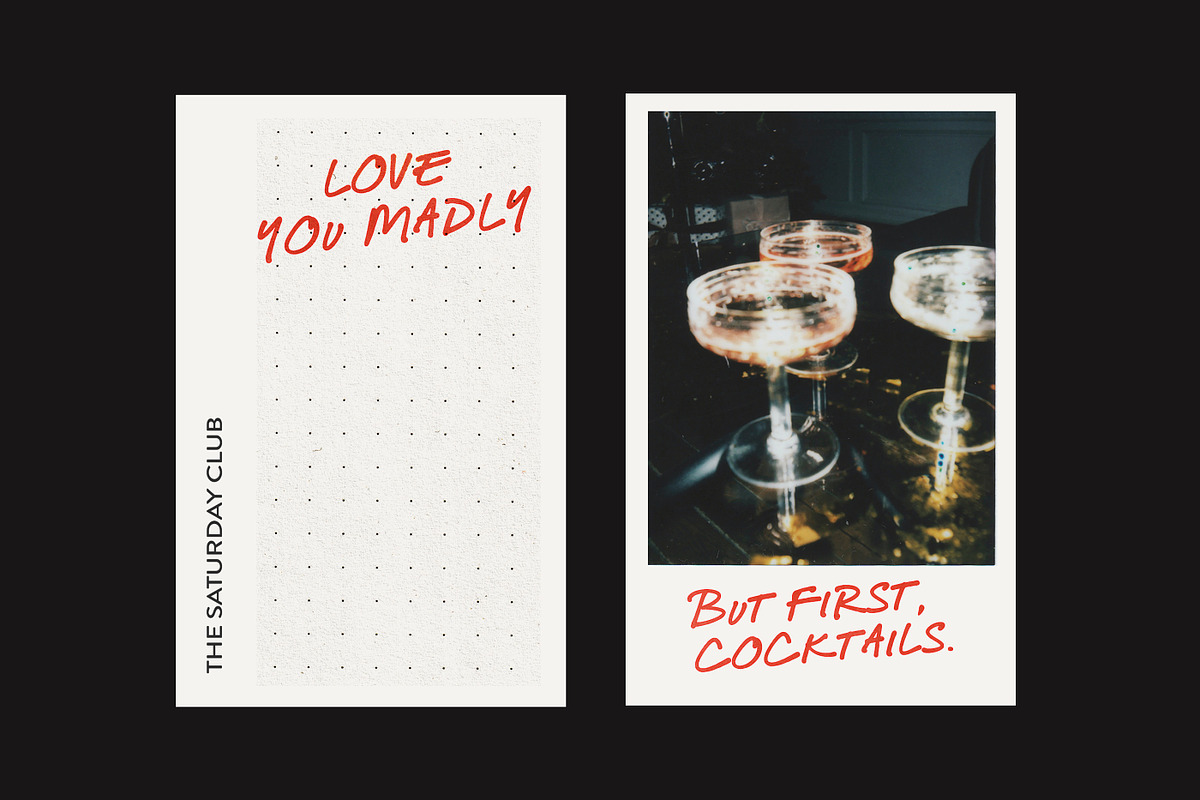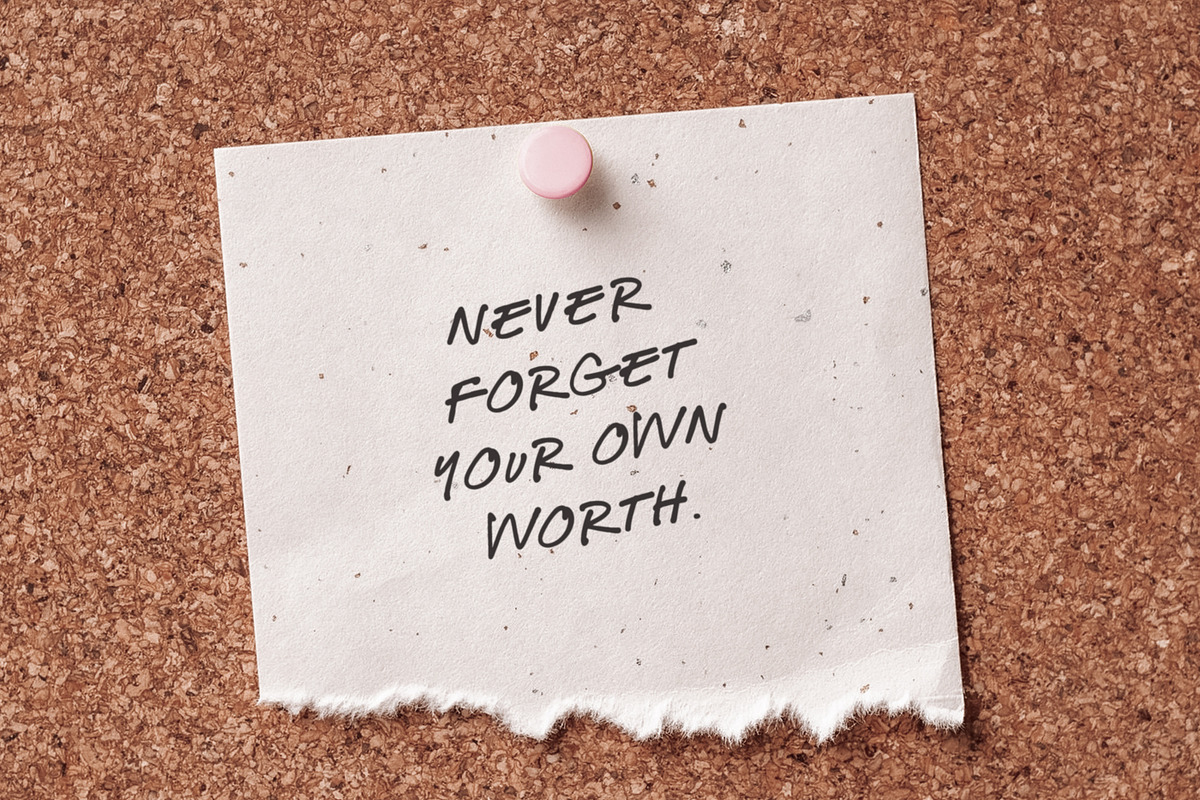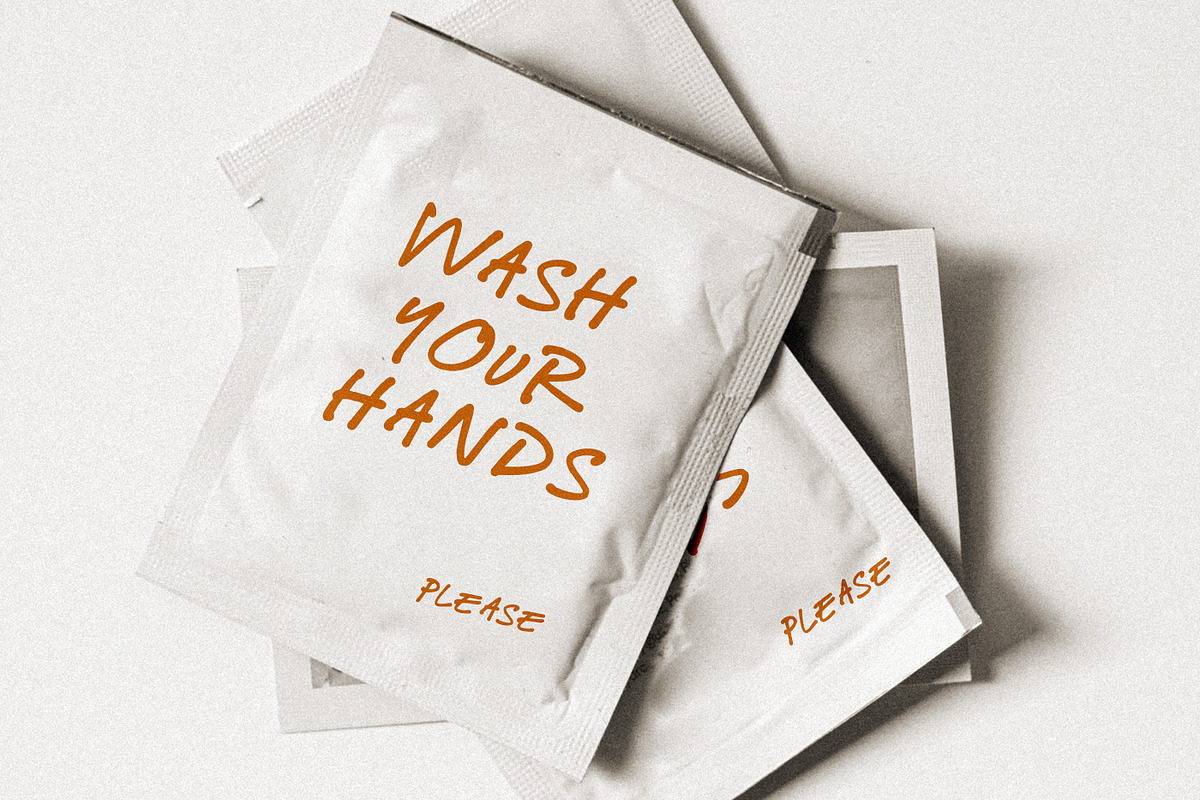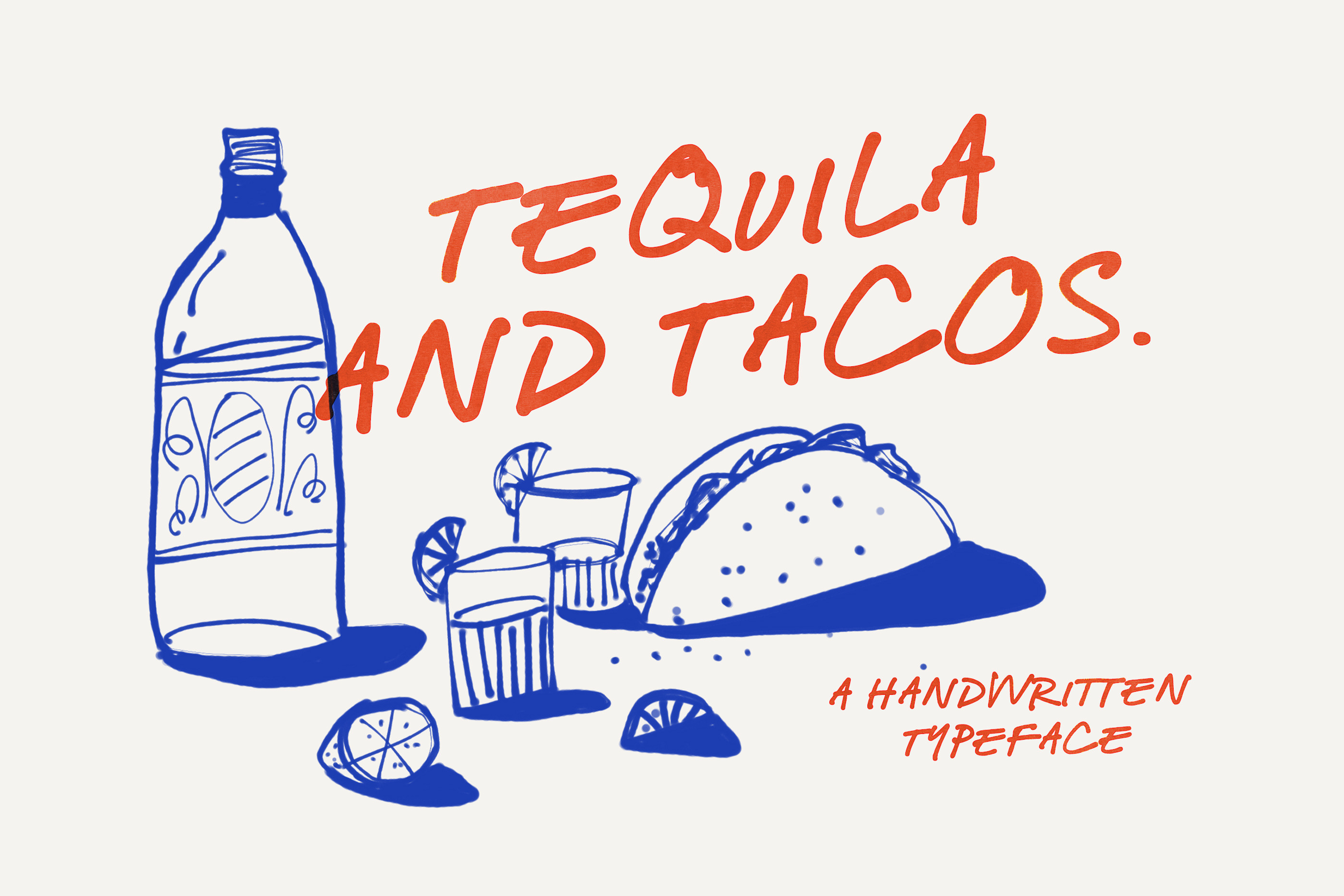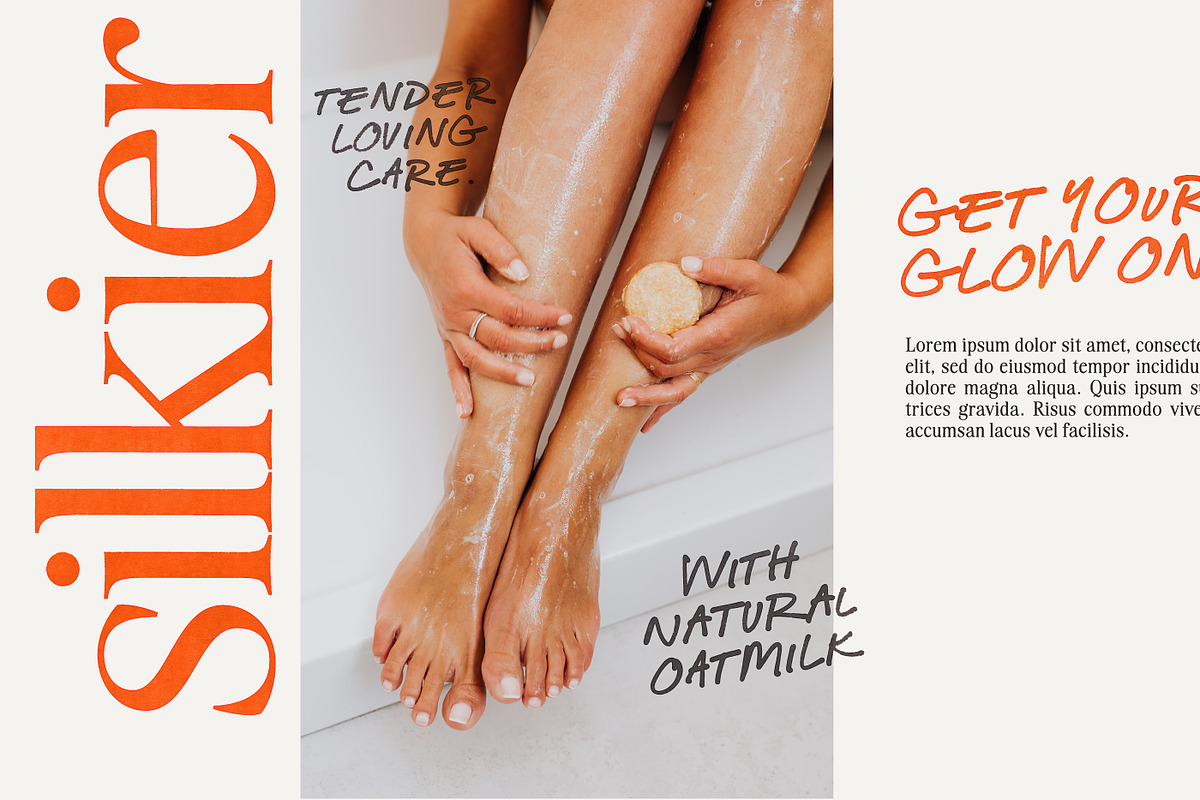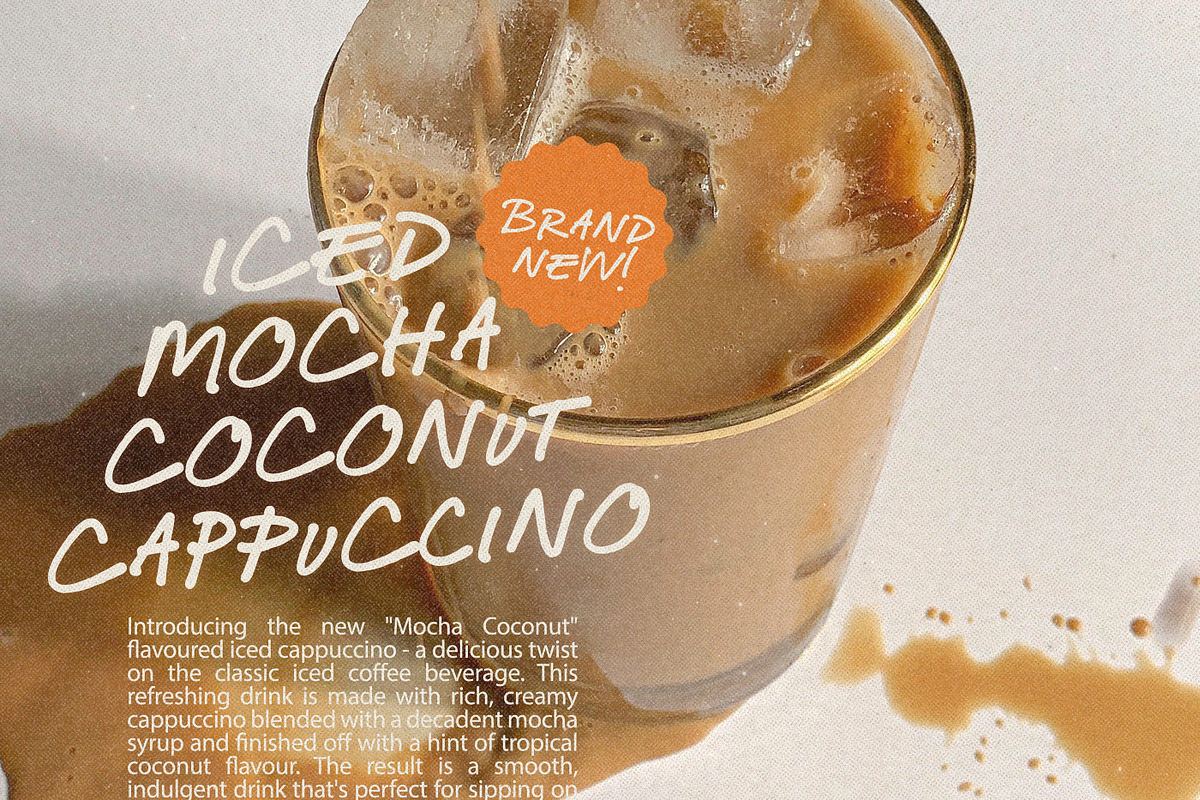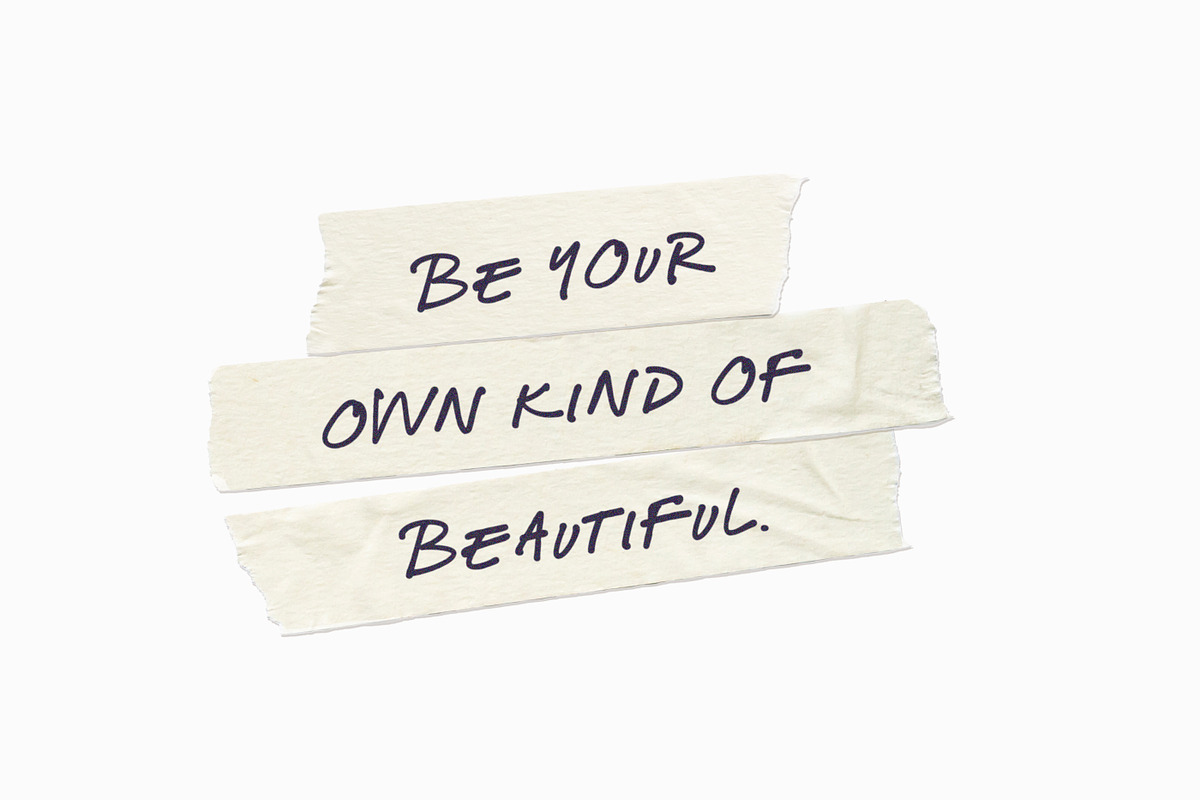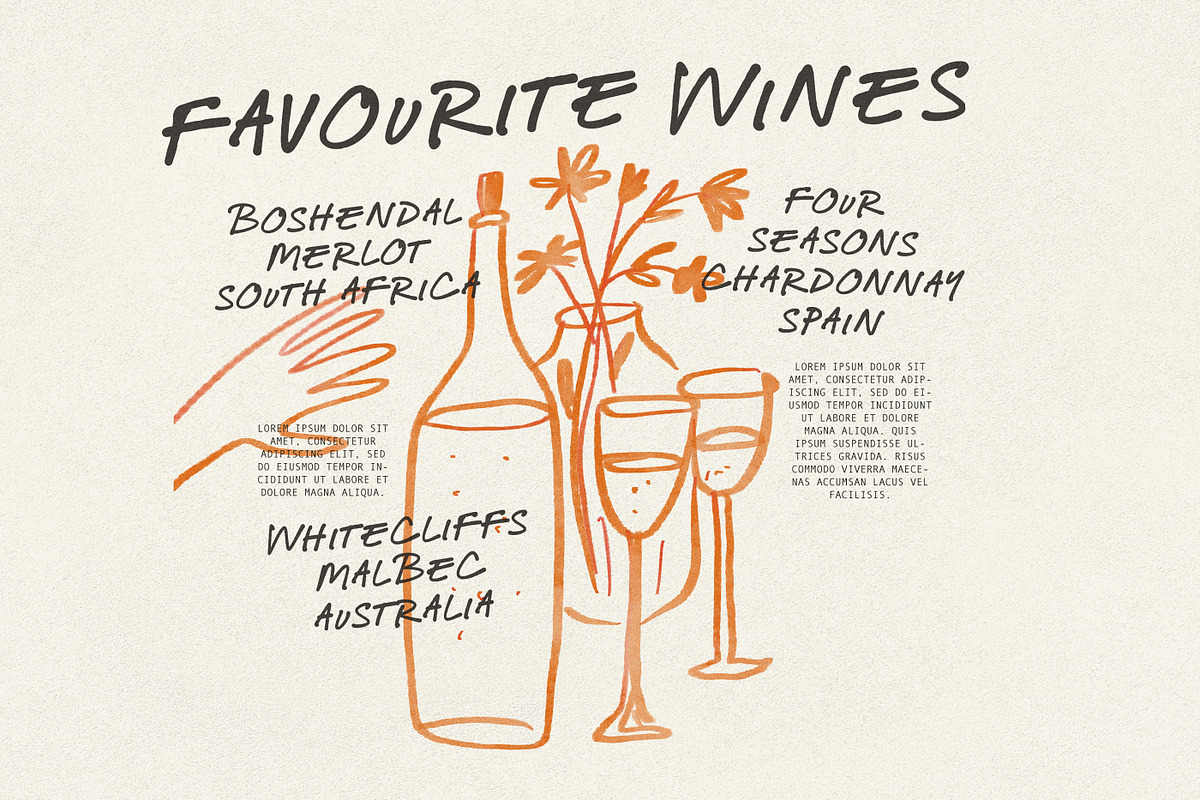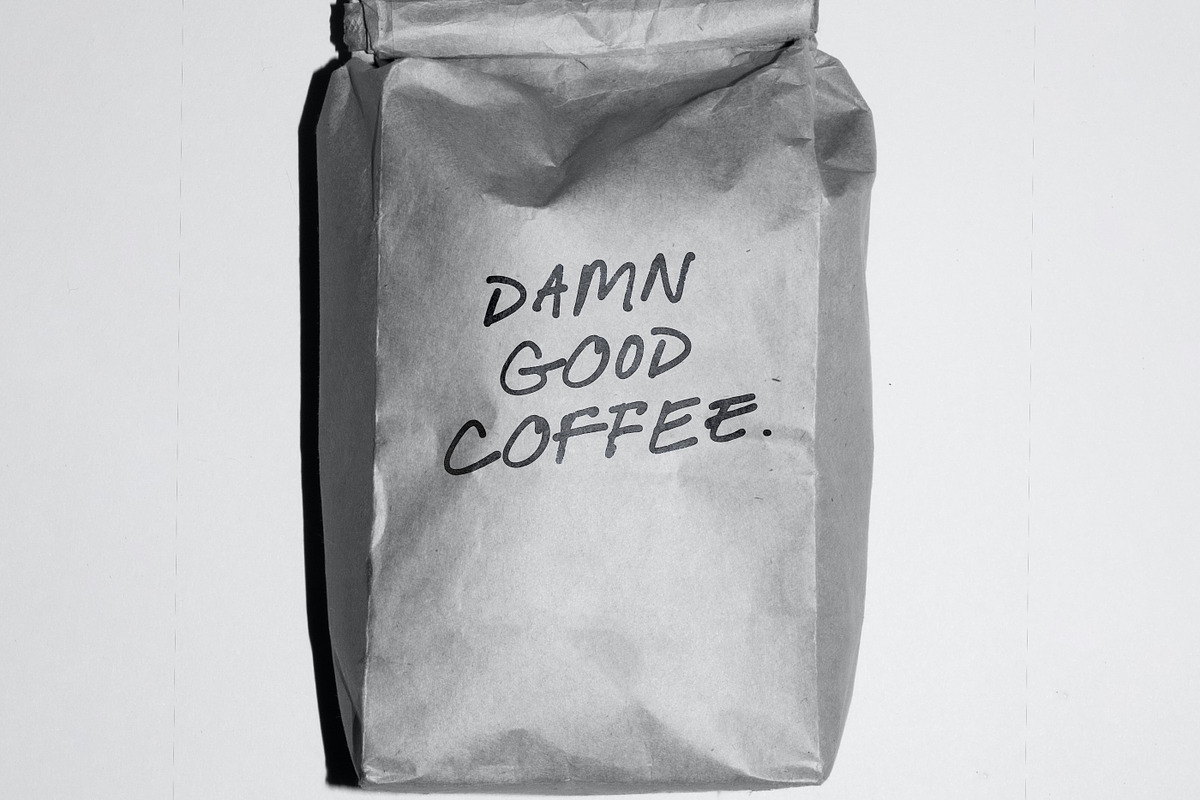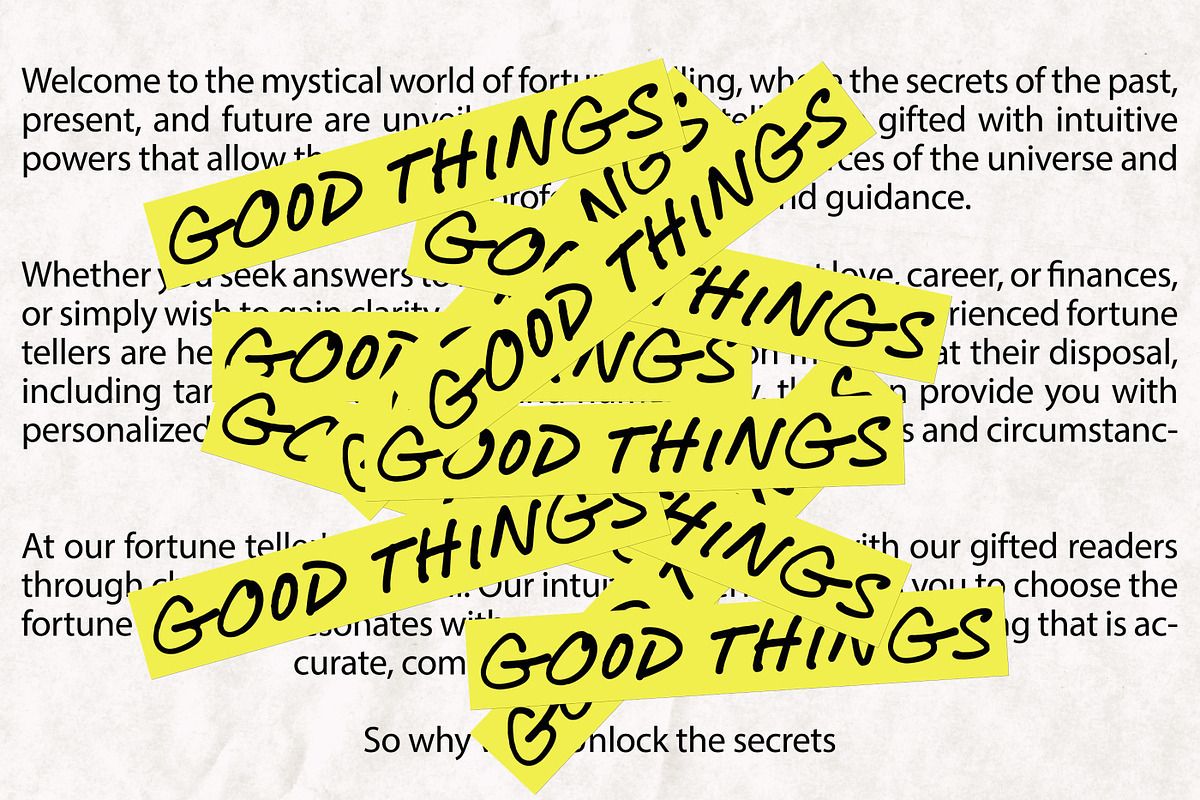
Tequila and Tacos Font
For those ultra natural-looking handwritten, jotted down notes, say hello to Tequila and Tacos!
Designed to look casual and carefree, but with business to take care of :)
The characters consist of uppercase letters, but they differ in style for the uppercase and lowercase keystrokes, to make the font appear more like natural handwriting.
Opentype double-letter ligatures are built in for you too, just turn on your ligatures setting in your design app , to see them appear as you type.